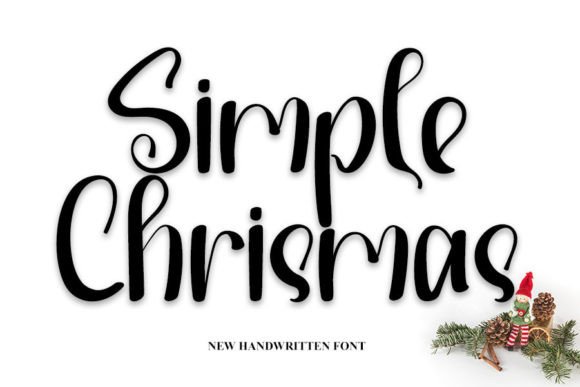
In a world saturated with digital noise, your words have the power to cut through the clutter and leave an indelible mark. Simple Chrismas Font, a creation of Kongsi.Co, is your secret weapon to transform your designs into captivating masterpieces, effortlessly capturing hearts and turning heads.
Step into a realm of elegance and grace with Simple Chrismas, a script font that dances on the page like a delicate snowflake. Its handwritten Q is a work of art, a testament to the beauty of imperfections, inviting you to craft designs that resonate with warmth and authenticity.
Unleash your creativity and let the words flow, for Simple Chrismas is your canvas. Whether you're a seasoned designer or just starting your creative journey, this font will elevate your projects to new heights. With its timeless style and distinct character, Simple Christmas will make your designs shine brighter than a star on a Christmas Eve.
With Simple Chrismas, the possibilities are endless. Craft stunning logos that command attention, design eye-catching social media posts that captivate your audience, or create personalized invitations that leave a lasting impression. This font is your passport to a world of creative freedom, allowing you to express yourself with elegance and flair.
As you embark on your design journey with Simple Chrismas by your side, you'll discover a font that's not just a tool, but an extension of your creative soul. Its intricate curves and playful strokes will breathe life into your words, transforming them into visual symphonies that touch the hearts of your audience.